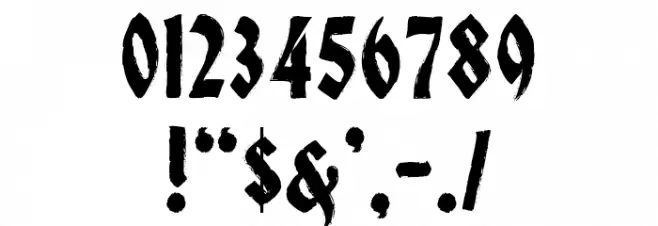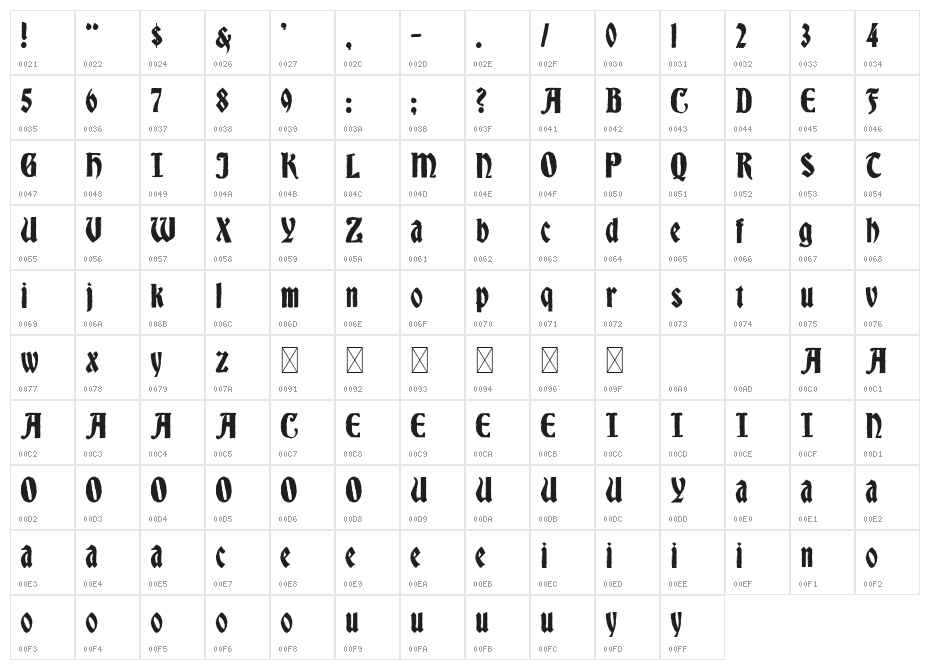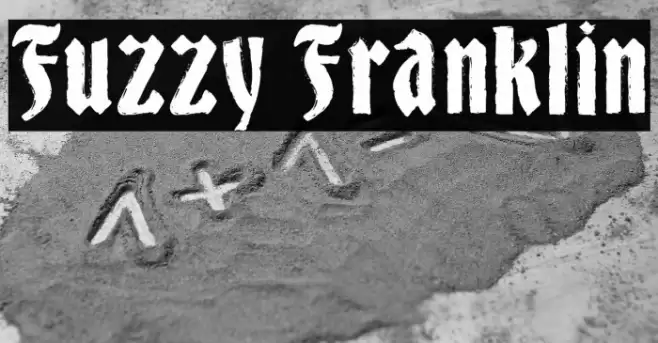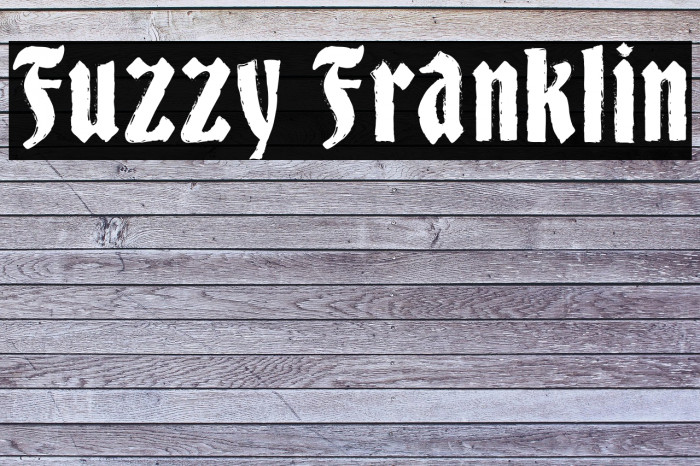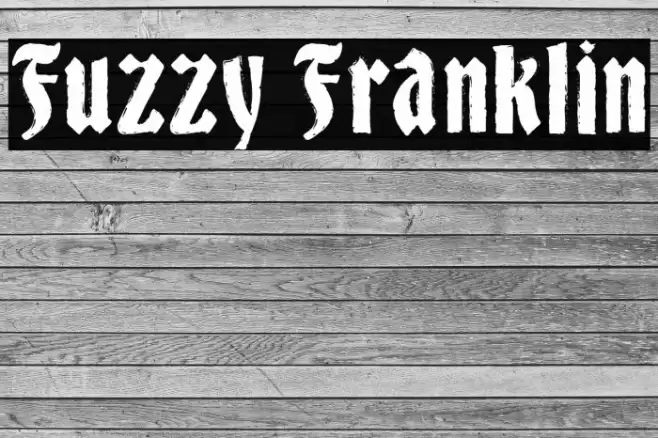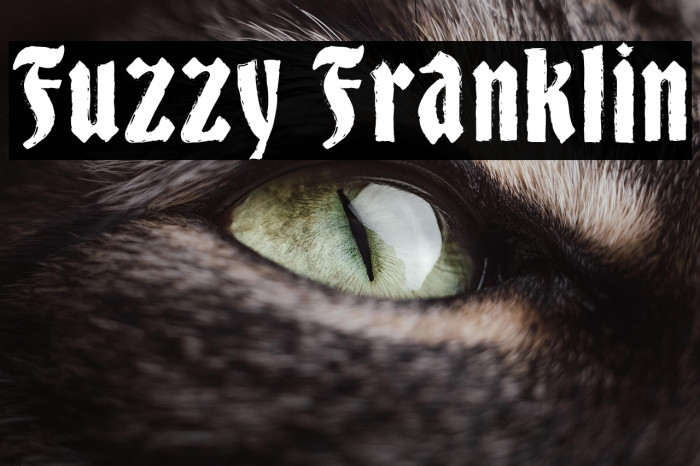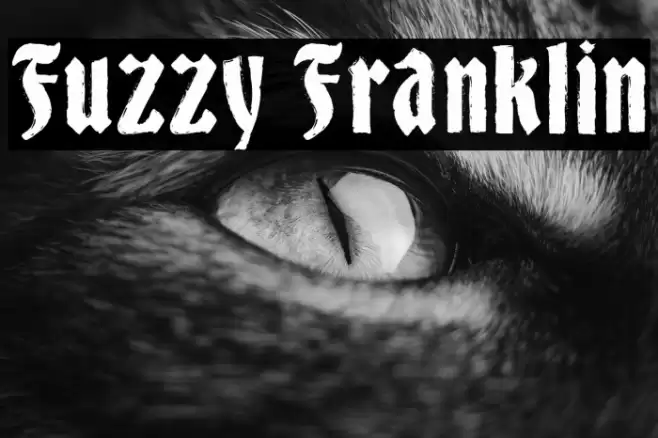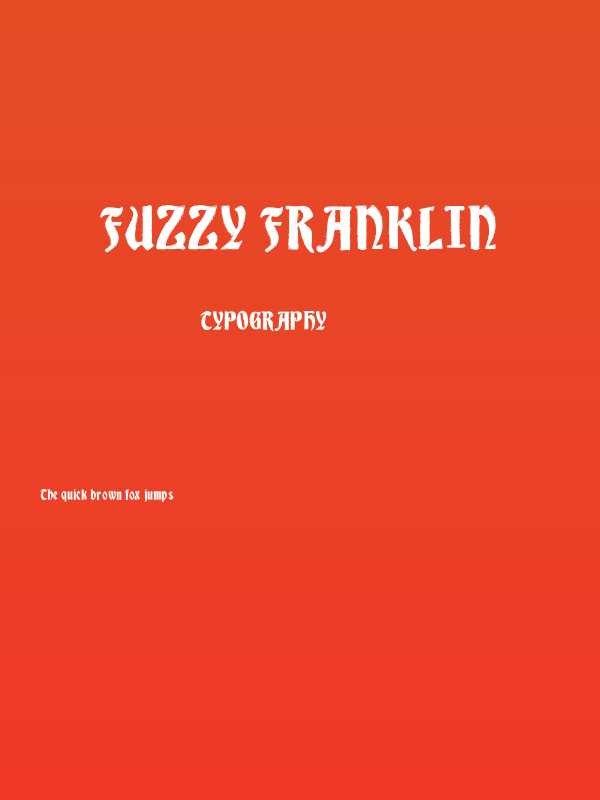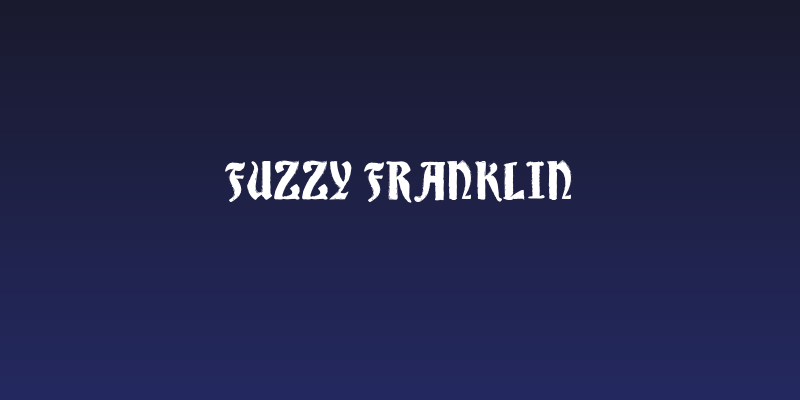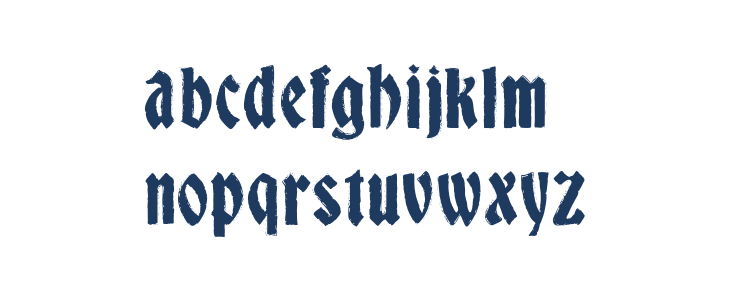
Fuzzy Franklin Font
Fuzzy Franklin Description
This font features a bold and dramatic style reminiscent of traditional blackletter typefaces. The characters are characterized by their thick, angular strokes and sharp edges, giving them a strong and authoritative presence. The uppercase letters are particularly striking, with a gothic flair that adds a sense of historical depth. The lowercase letters maintain the same boldness, ensuring consistency across the typeface. Numbers and special characters are equally robust, making them suitable for impactful displays. The overall texture of the font suggests a hand-crafted quality, adding a unique touch to any design.
| Proposed Projects | Ideal for projects requiring a historical or gothic aesthetic, such as book covers, posters, or branding for vintage-themed events. |